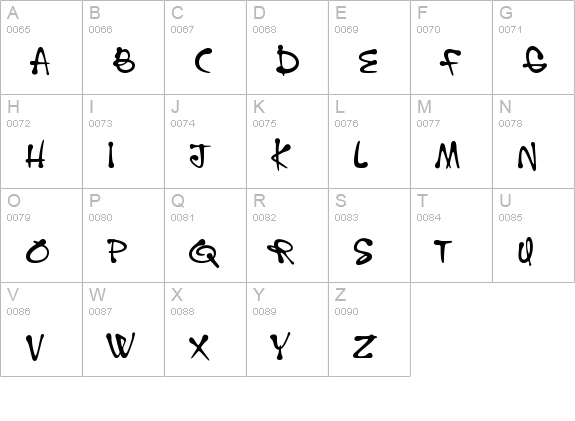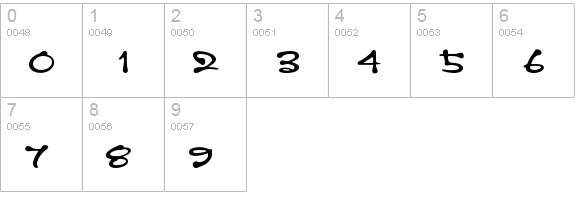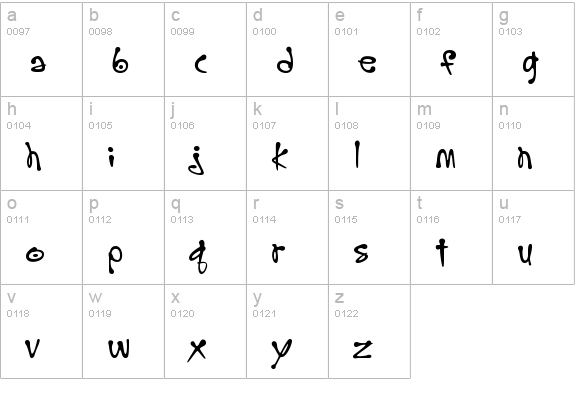
Hoopla Font Details
Hoopla font is a playful and dynamic typeface that exudes a sense of energy and excitement. With its bold and fluid letterforms, Hoopla is perfect for projects that require a touch of whimsy and fun. This versatile font can be used for a variety of design purposes, from posters to invitations to branding materials. What sets Hoopla font apart is that it is available for free download at FontsMarket.com. This means that you can easily access this eye-catching font and incorporate it into your creative projects without any cost. So why wait? Add a dash of personality to your designs with Hoopla font today!